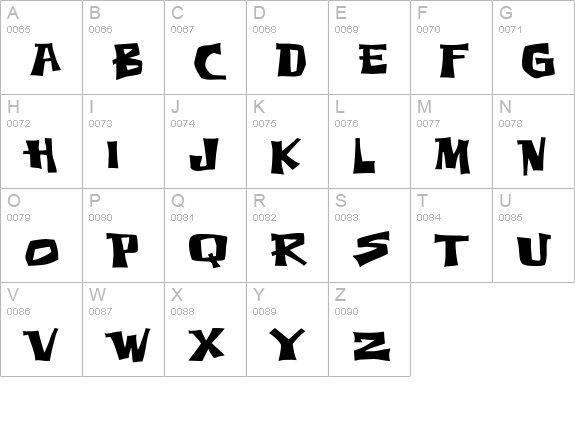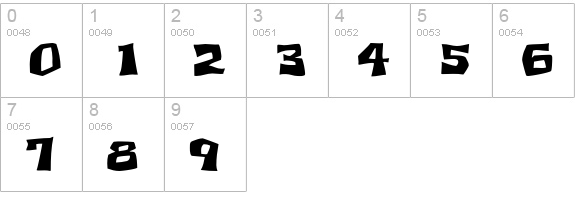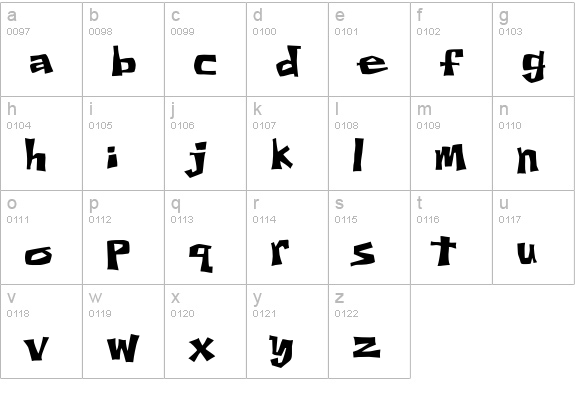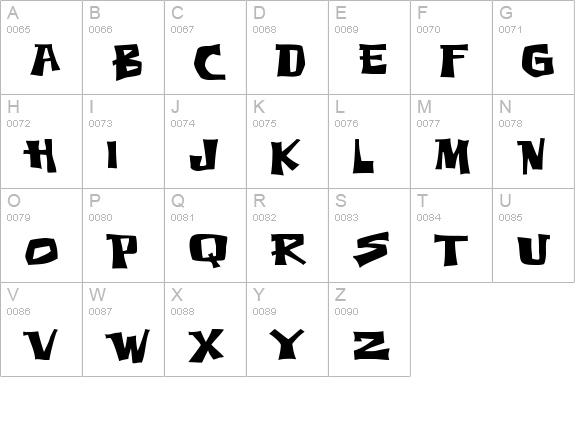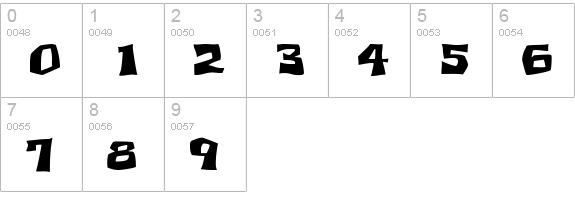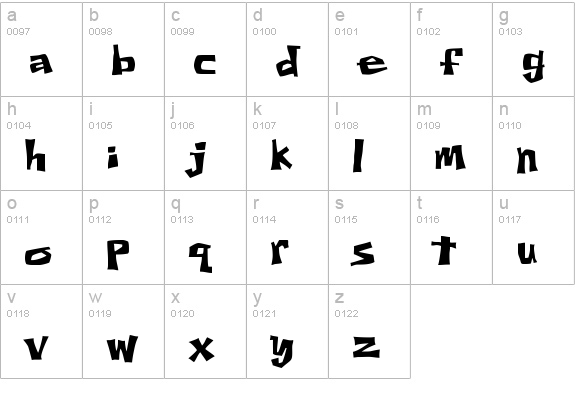
Thud Font Details
Thud font is a striking and bold display typeface that is perfect for making a statement. Its strong and powerful letterforms demand attention and add a touch of edginess to any design project. With its angular and robust structure, Thud font exudes strength and confidence. This unique font is not only visually captivating, but it also offers a versatile range of weights, making it ideal for various design applications. Whether you're creating eye-catching headlines, attention-grabbing logos, or captivating posters, Thud font will give your designs an instant impact. What makes Thud font even more appealing is that it is available for free download at FontsMarket.com. This means that you can easily access this stunning font and incorporate it into your projects without any hassle. Thud font's distinctive personality and its ability to command attention make it a fantastic choice for anyone looking to add a bold and dynamic element to their designs. Its sleek and modern aesthetic ensures that it will remain a timeless choice for years to come. So why wait? Download Thud font for free at FontsMarket.com and let your creativity unleash with this powerful and captivating typeface.